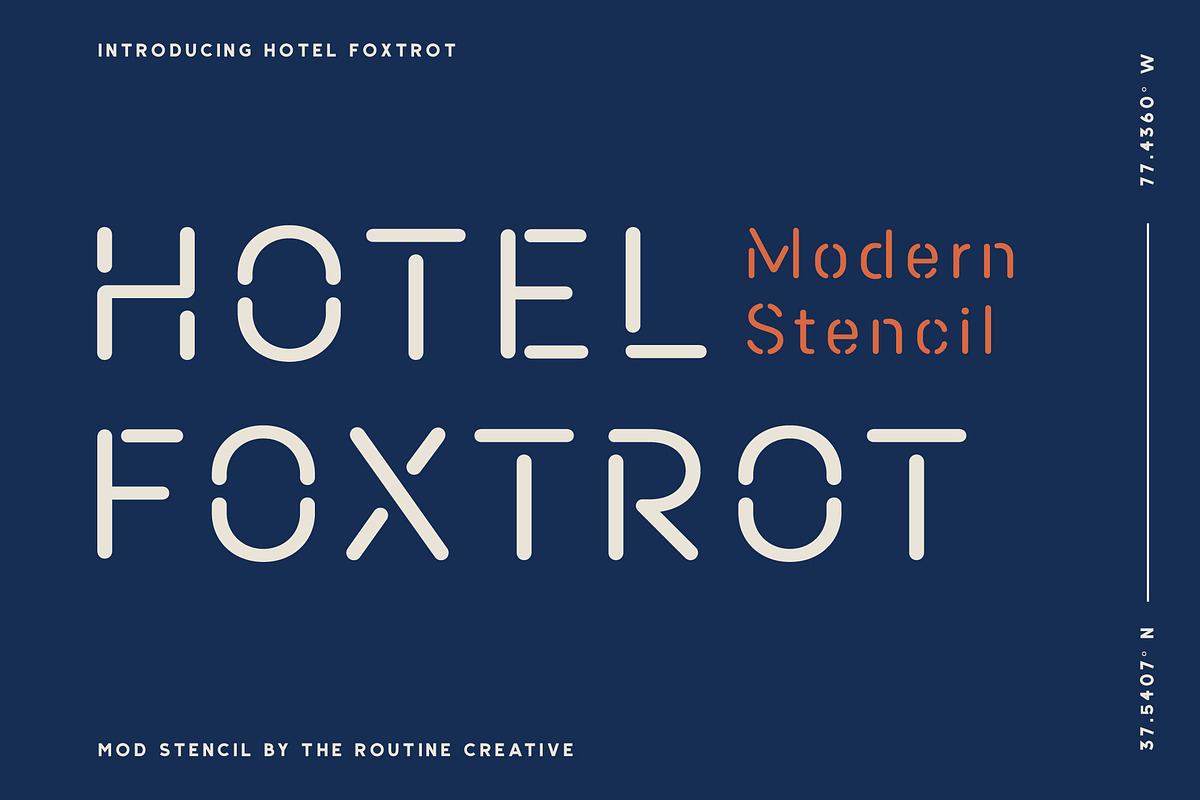
Hotel Foxtrot Modern Stencil Font Free Download is a sleek and contemporary typeface with a distinctive stencil design, perfect for modern branding, editorial headlines, signage, and packaging. Its geometric structure and clean cuts offer a bold yet minimalist vibe that captures attention and communicates confidence.
If you're looking to make a stylish statement, Hotel Foxtrot Modern Stencil Font Free Download delivers a professional edge with creative flair. Ideal for both print and digital use, this font includes uppercase letters, numerals, punctuation, and multilingual support—making it as versatile as it is striking.